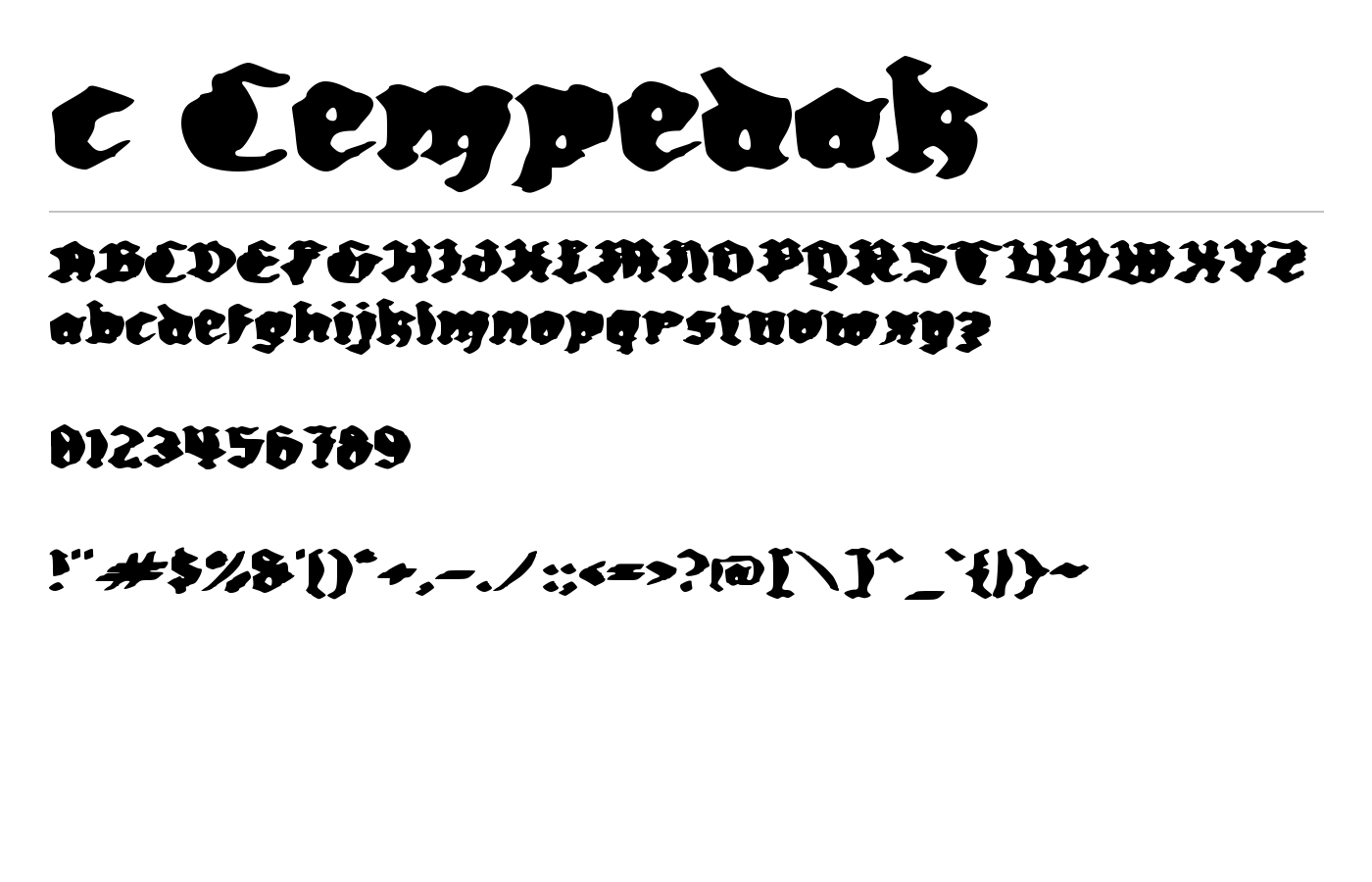
Cempedak is a bold and heavy blackletter-style font with a distinctively rough, textured appearance that feels edgy and dramatic. Its dense letterforms, irregular shapes, and strong contrast create a vintage yet raw vibe, making it ideal for striking headlines, posters, or branding that aims to stand out with a rebellious or gothic flair. This font works best in display contexts where its unique personality can make a bold statement.
c Cempedak Font
About c Cempedak Font